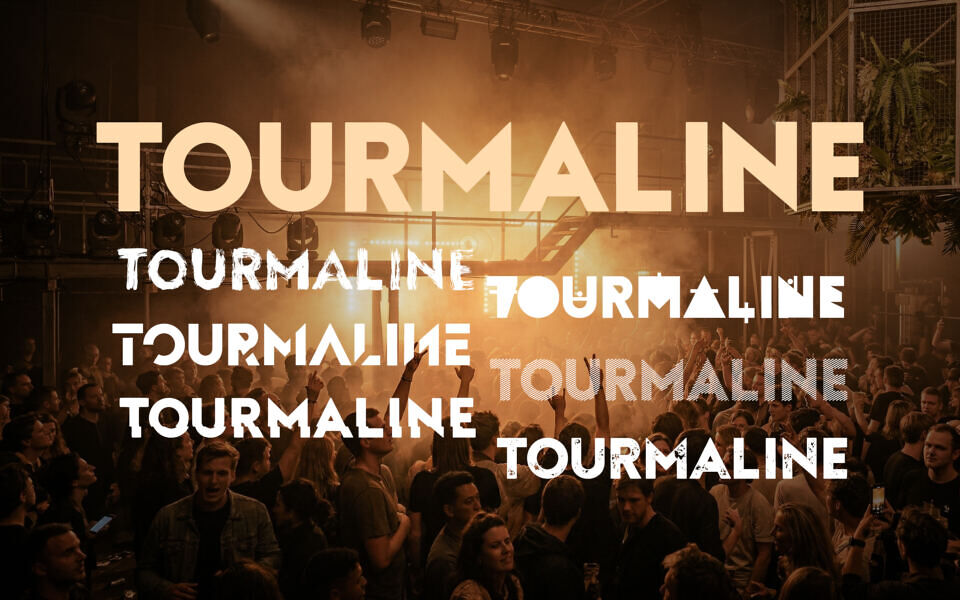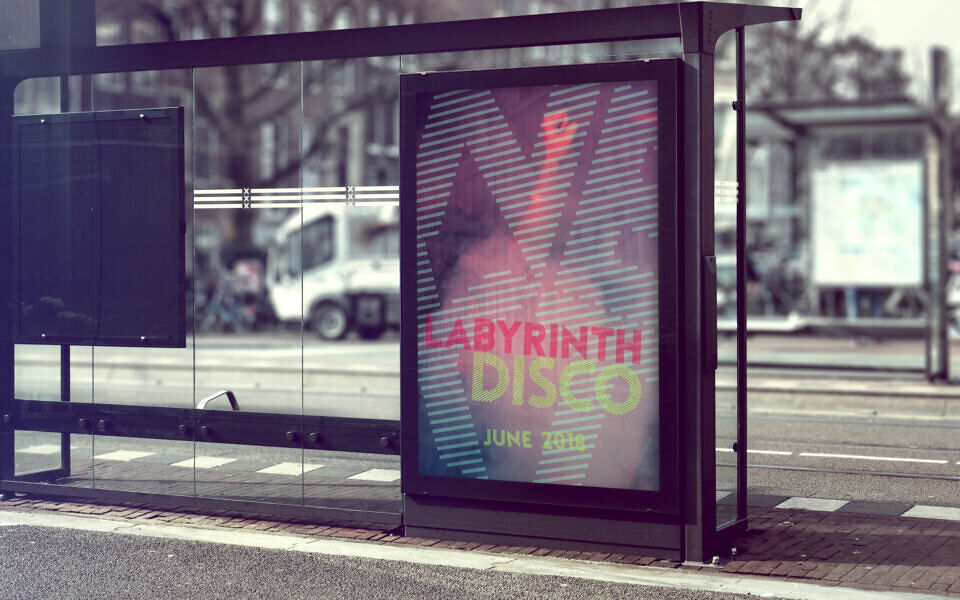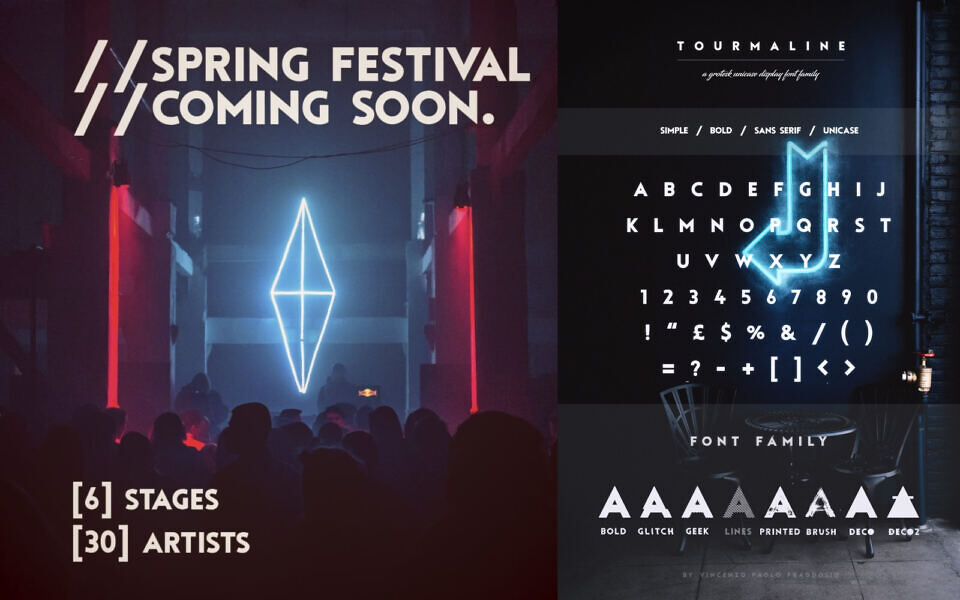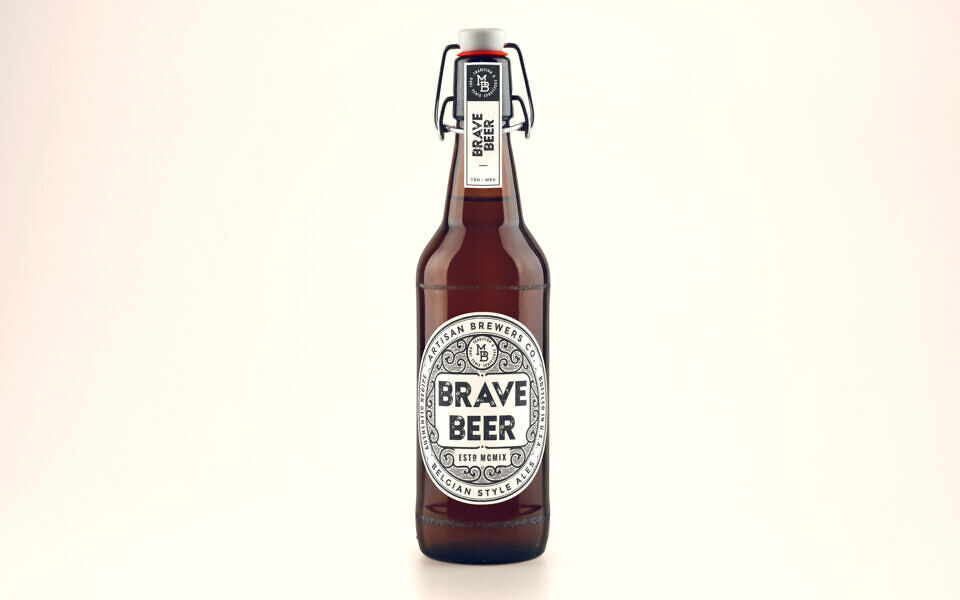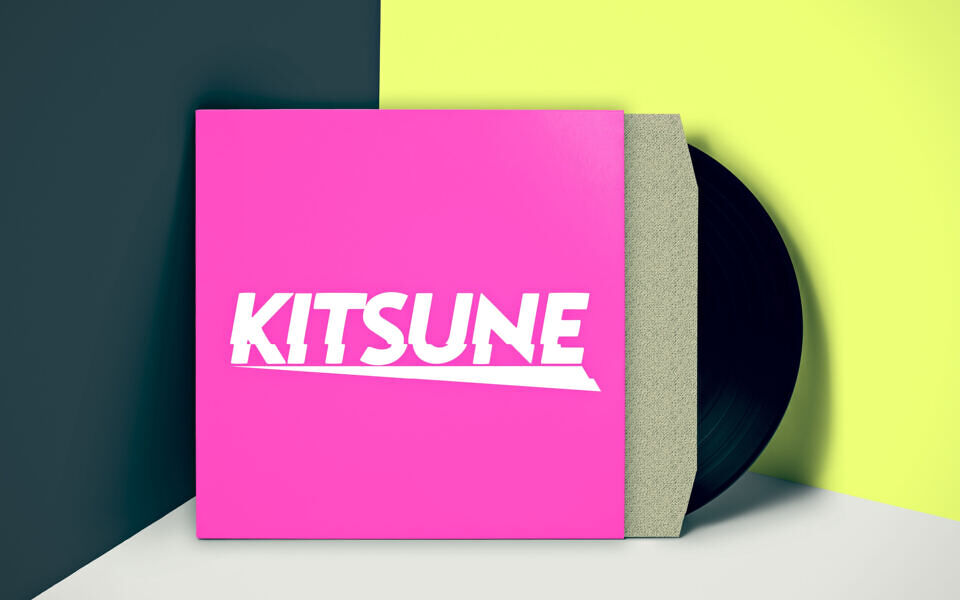
Tourmaline is a modern sans-serif font family designed by Vincenzo Paolo Fraddosio, featuring a clean base style with a wide range of creative variations.
From bold and geometric to glitch, brush, and deconstructed effects, it offers versatility for both minimal and experimental designs. Ideal for posters, branding, and digital artwork, Tourmaline blends simplicity with edgy visual flair.